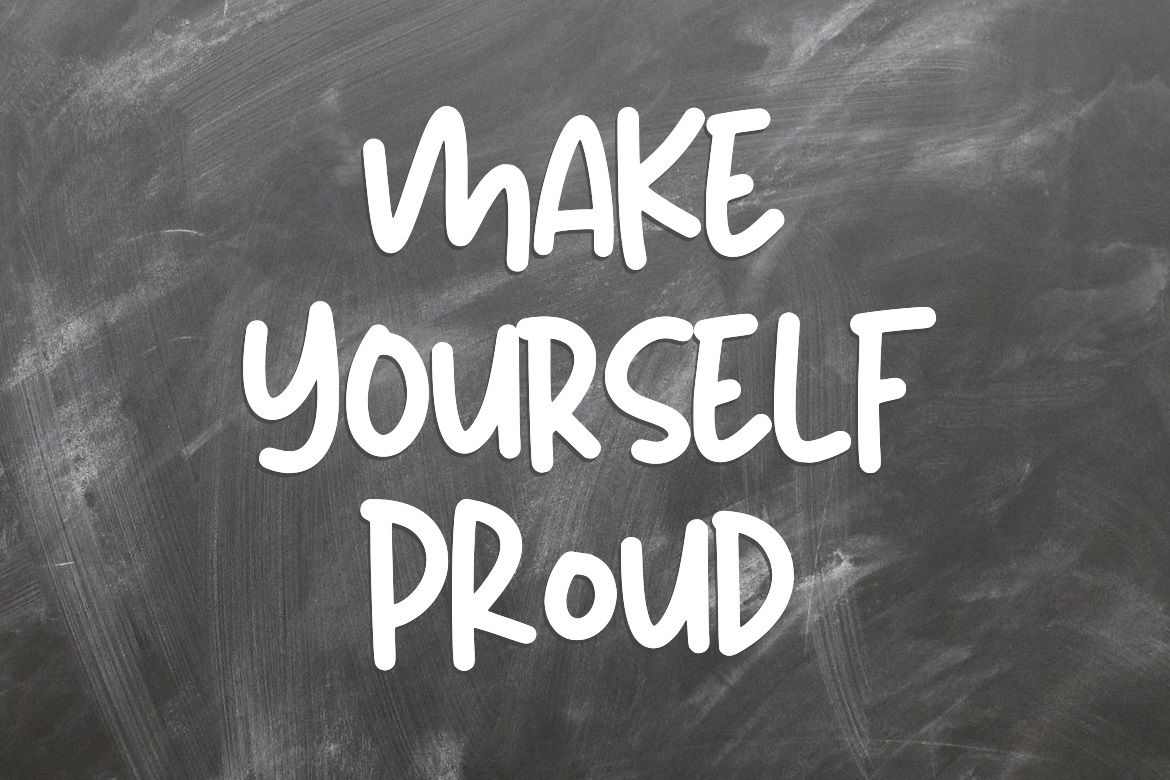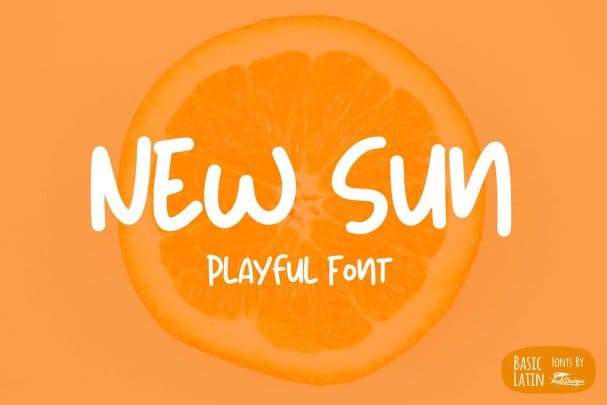
New Sun Playful Font
New Sun Playful Font comes beneath the class of the number one fonts. That is one of the most beautiful fonts and additionally used in making the content look creative. Collectively with enterprise employer organization business employer company emblems and metal fabricated lettering. That may be a similarly adorable and particular type in sans serif typeface family.
The fashion of this font may be very new and fashionable. The first-rate’s fonts are finished, specifically, calligraphy patterns and designs of several works of paintings. New Sun Playful Font Free You can use this font in all the painting works and pinnacle-notch elegant works which might be very vital to you for your on foot placement and one-of-a-type designing opportunities that you much like the kid font. This font may be finished in all unique duties of designing in addition to calligraphy.